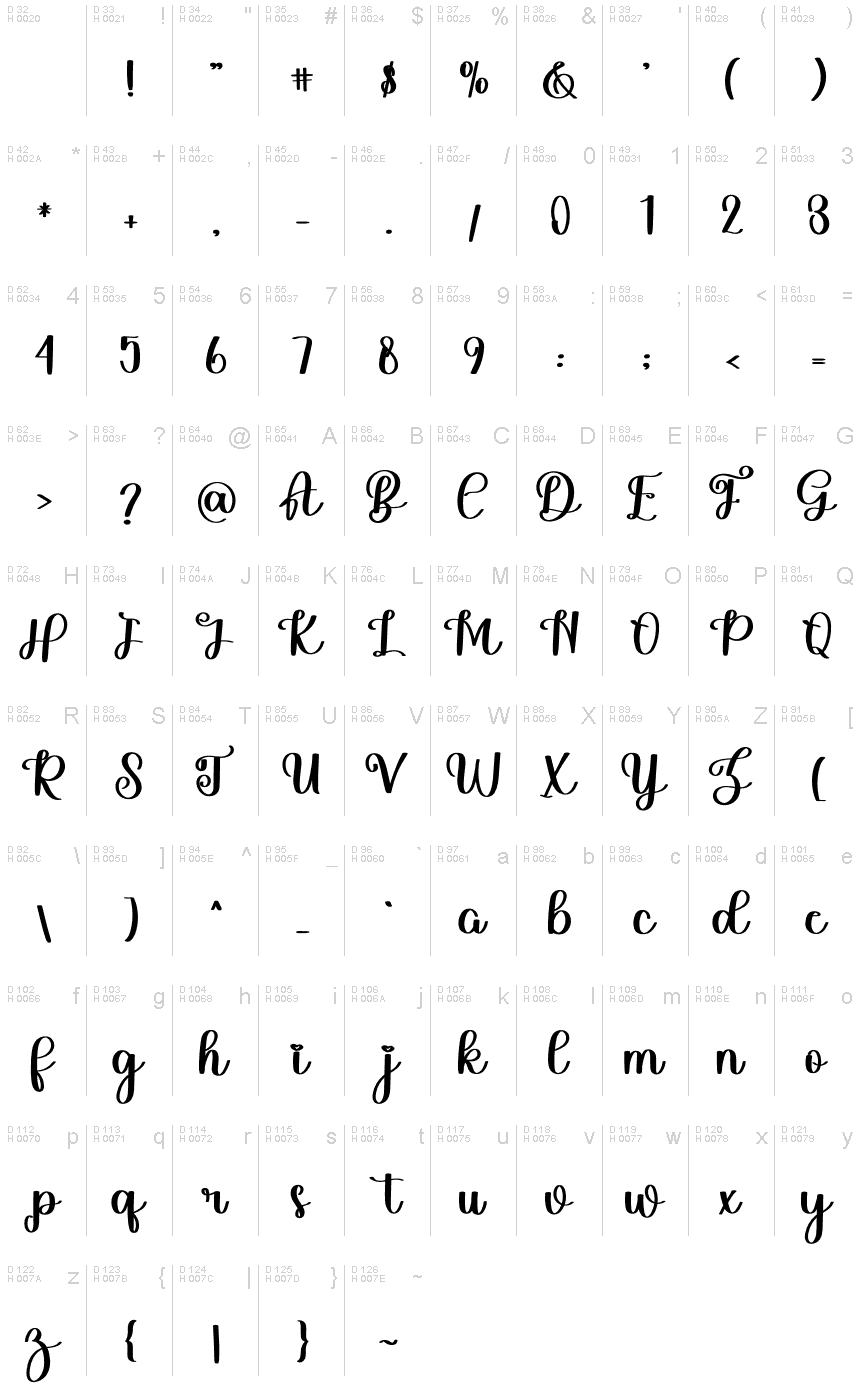
Whiteboard
Whiteboard is a hand-crafted typeface by Inermedia Studio. With its bold and wide strokes, it offers a unique and creative look. It is perfect for projects requiring a playful tone—think posters, flyers or picture books. Its distinct style makes it stand out from the crowd while still maintaining readability. Whiteboard is also great for creating logos or adding an artistic touch to any project.